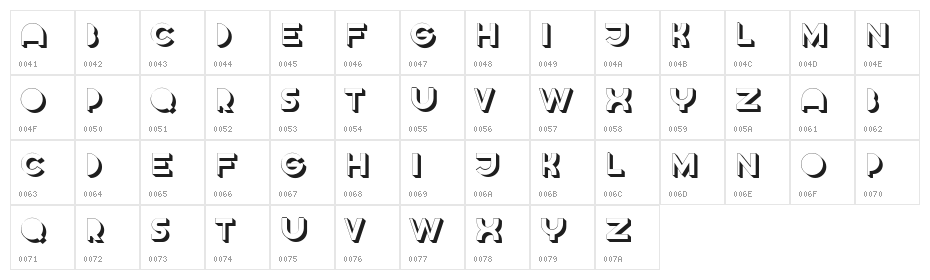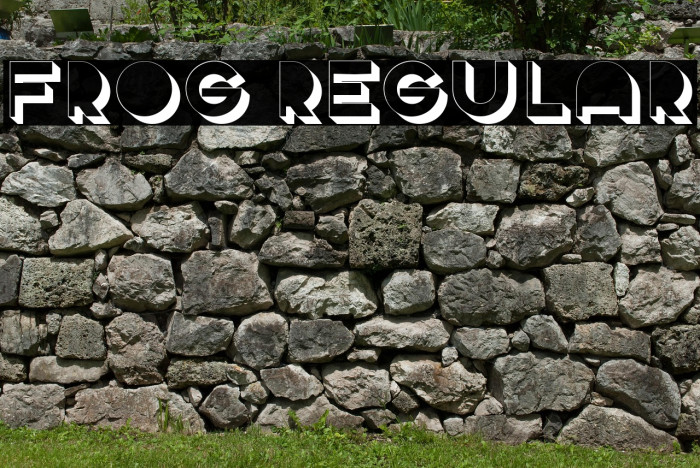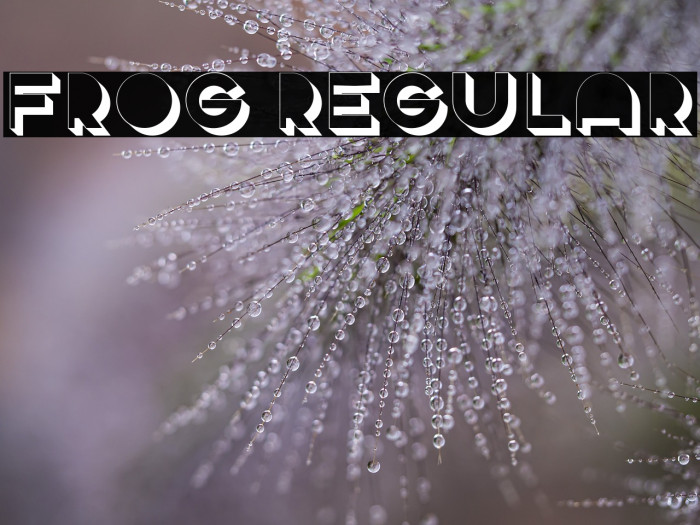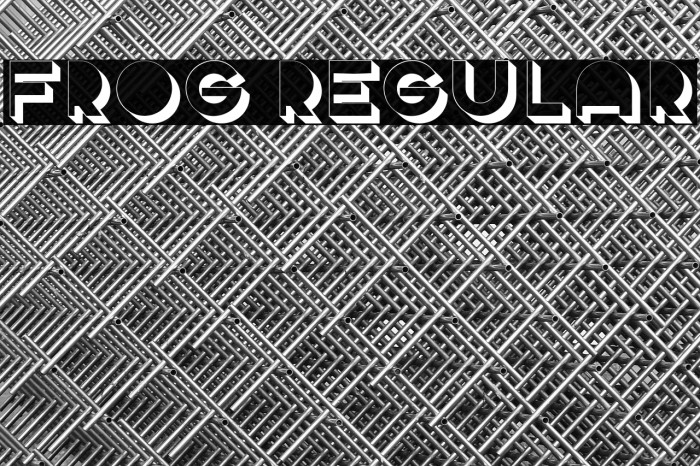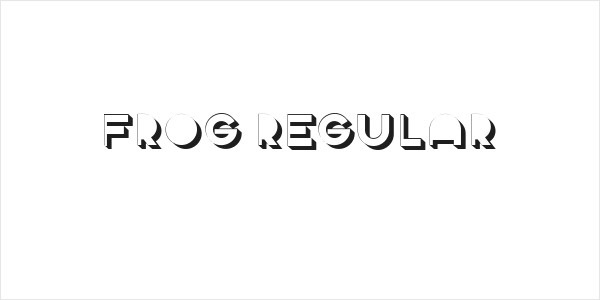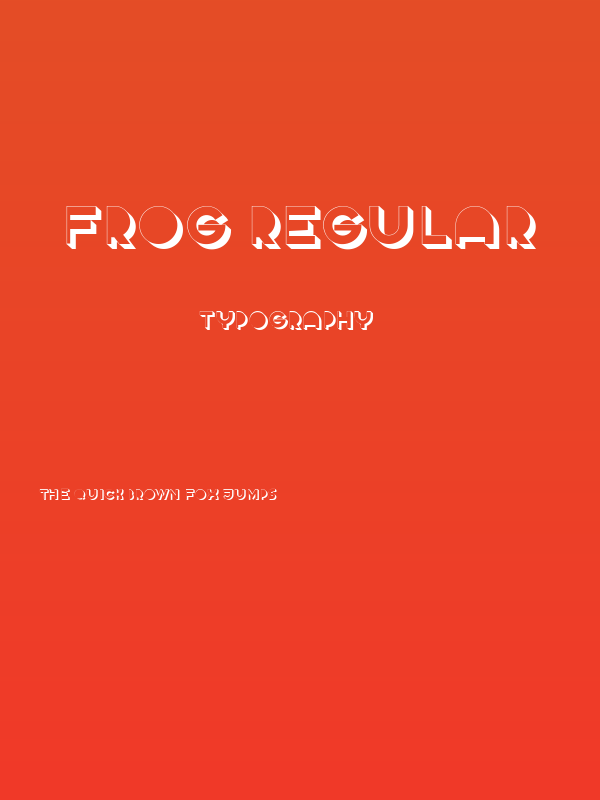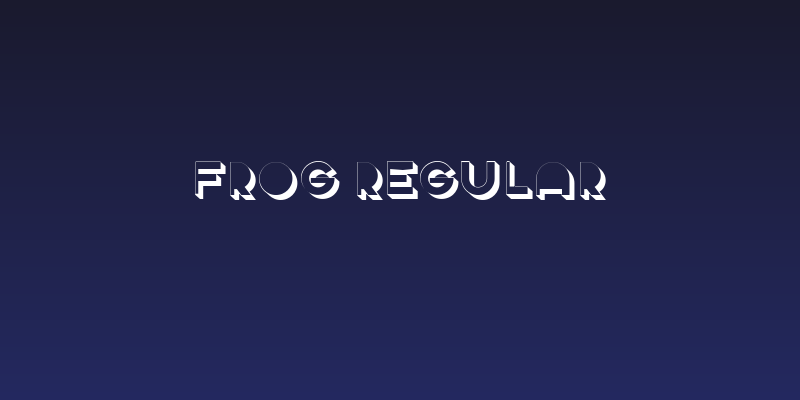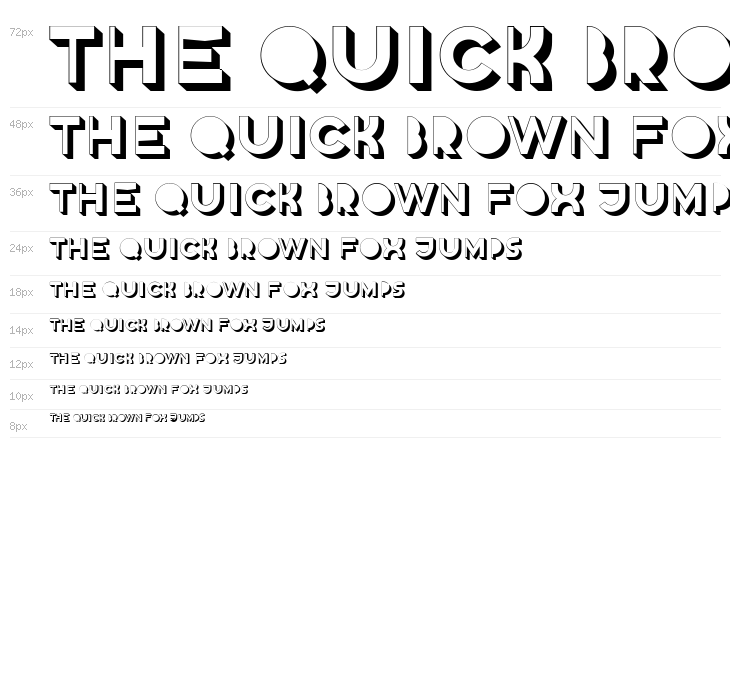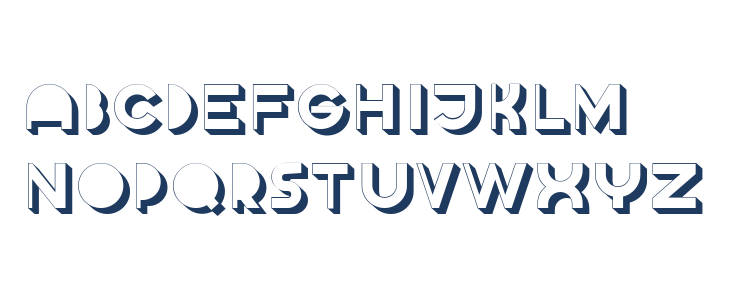
Frog Regular Font
Frog Regular Description
This font features a bold, geometric style with a three-dimensional effect that gives it a striking and modern appearance. The characters are constructed with clean lines and sharp angles, creating a sense of depth and dimension. The uppercase letters are particularly prominent, with a block-like structure that is both eye-catching and easy to read. The font's design is consistent across all characters, maintaining a uniform look that enhances its visual appeal. The use of shadowing adds to the three-dimensional effect, making it suitable for projects that require a bold and impactful typeface.
| Proposed Projects | Ideal for headlines, posters, branding, and any design project that requires a modern and impactful typeface. |